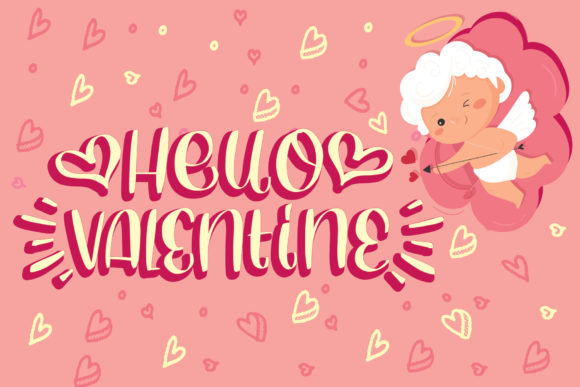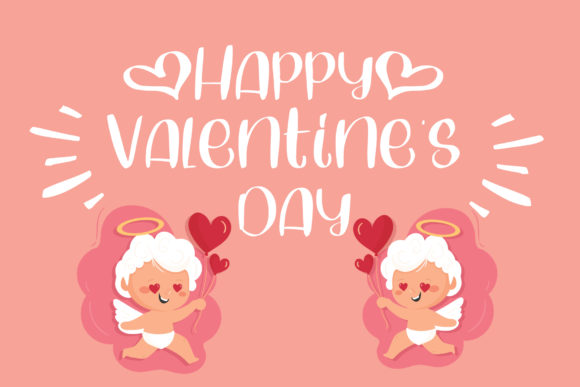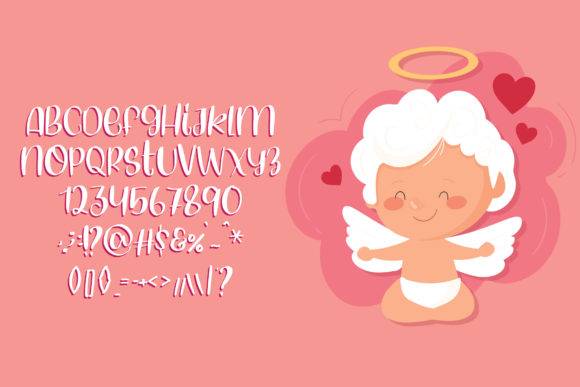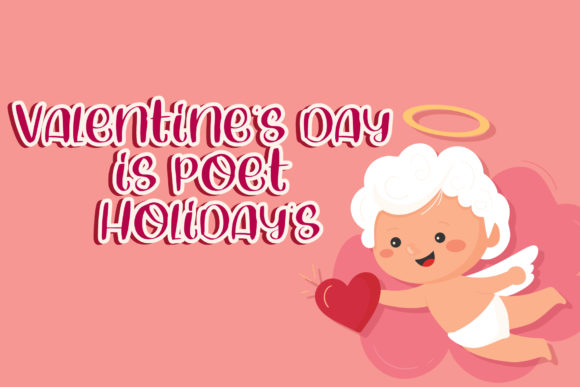
Hello Valentine Font
About Hello Valentine Font
Hello Valentine is a sweet and joyful handwritten font. It has bold and strong letters and it is the ideal choice for a wide range of designs.